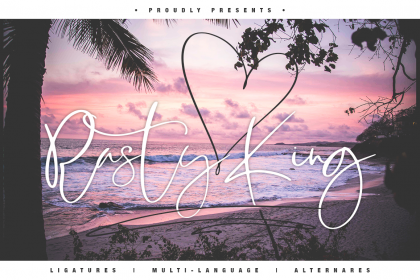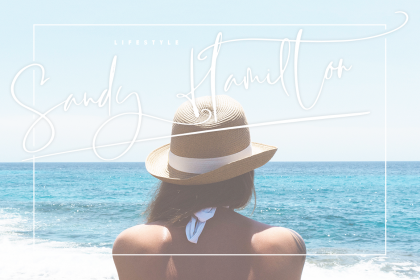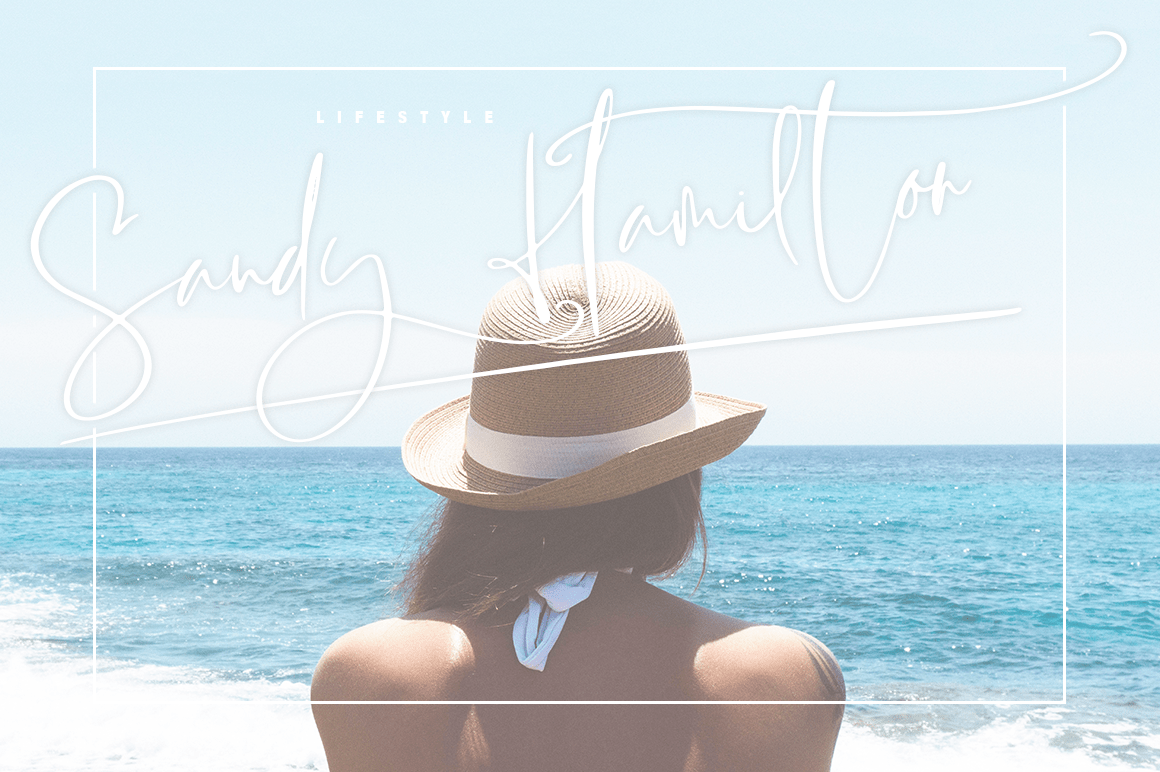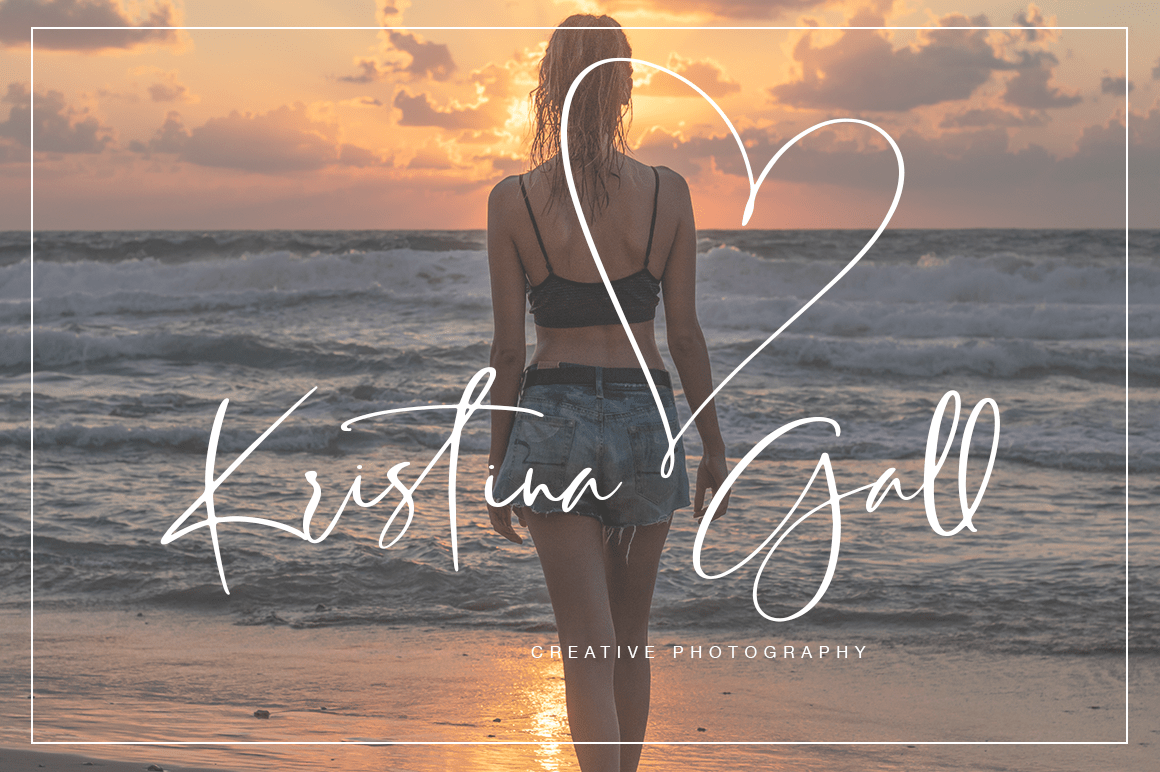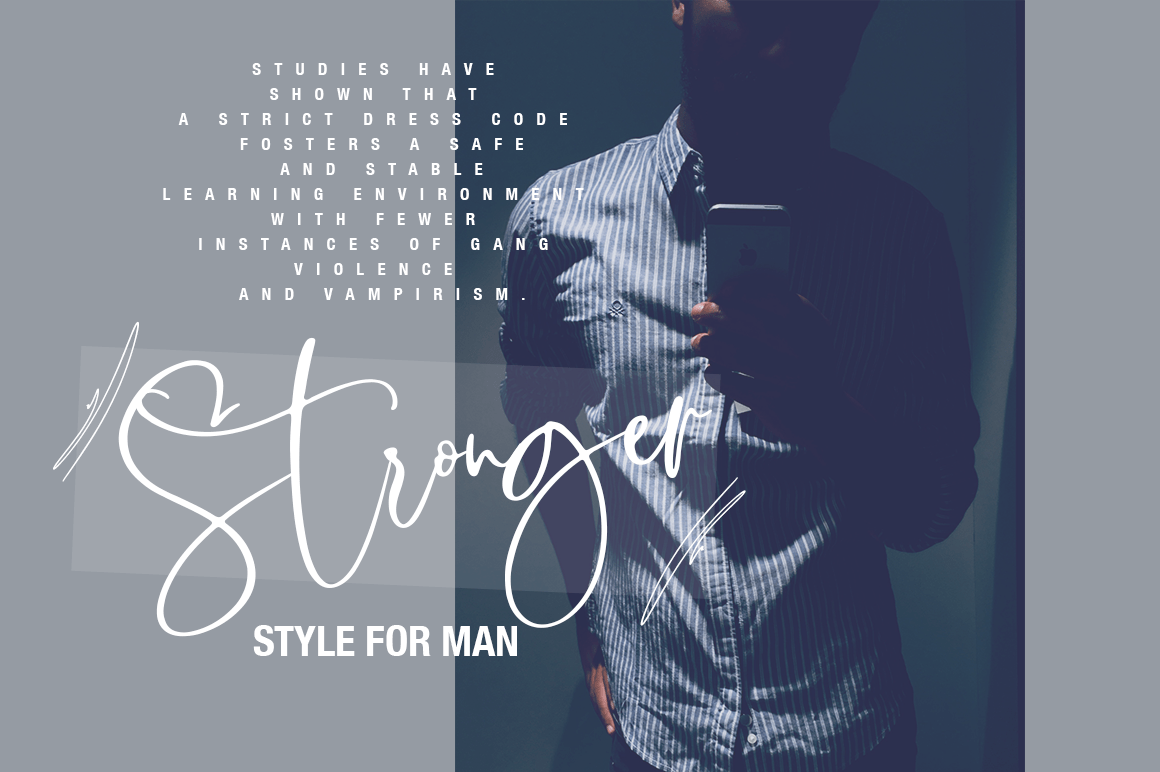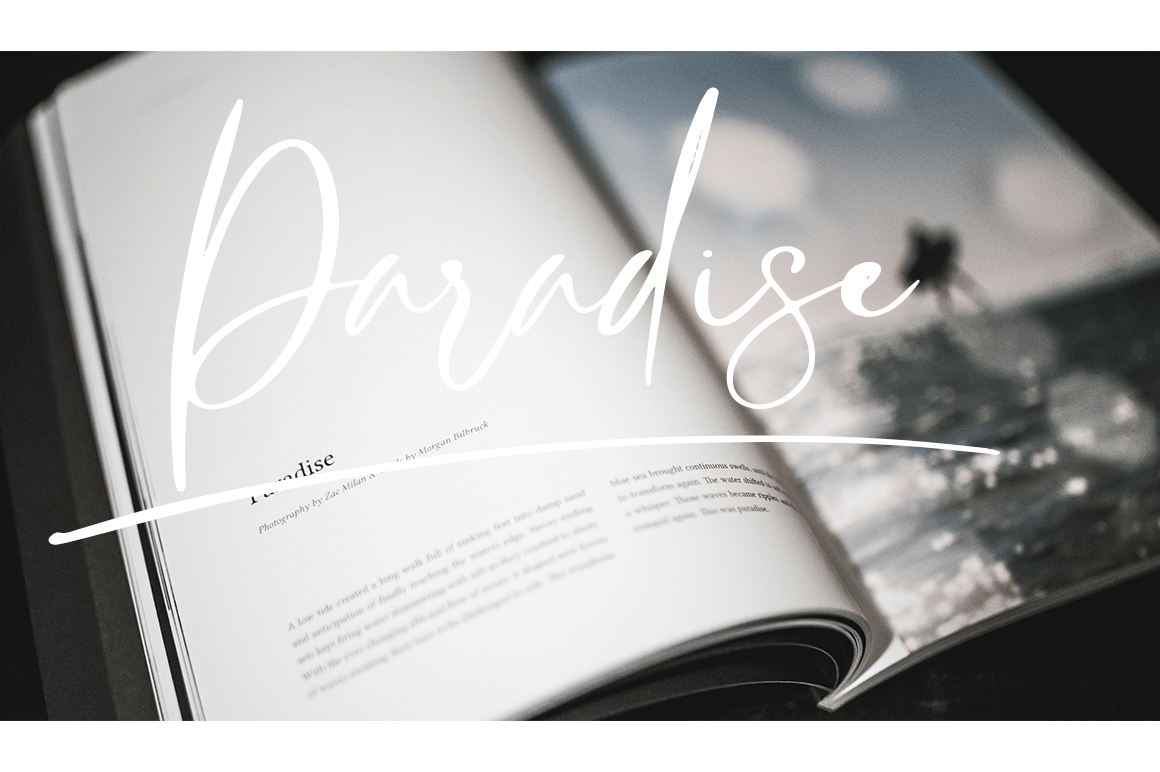
Rasty King Script Font
Rasty King – a new fresh handmade calligraphy font.
Very suitable for greeting cards, branding materials, business cards, quotes, posters, and more!This font are perfect for wedding postcard. Or you can create perfect and unique design of your logo, blog, stationery, marketing, magazines and more ?
Features :
• UpperCase & Lowercase
• Numerals & Punctuations
• Multilingualcharacters(AÀÁÂÃÄÅCÇDÐEÈÉÊËIÌÍÎÏNÑOØÒÓÔÕÖUÙÜÚÛWYÝŸŸ – ÆŒßÞàáâãäåæçèéêëìíîïðñòóôõöøùúûüýÿ)
• LIGATURES 39
• ALTERNATES and Others!!!